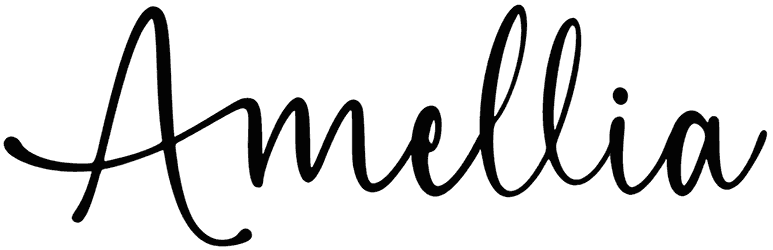
Amellia Font
Use the beautiful Amellia script font for an old-fashioned look. This font isn’t particularly legible, but it might make the writer seem more relaxed and natural. It is a great choice for books, magazines, and other printed media due to its gorgeous lettering and casual style.